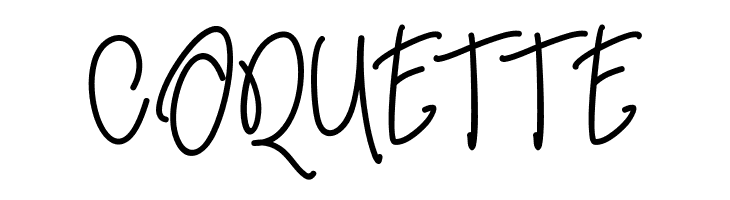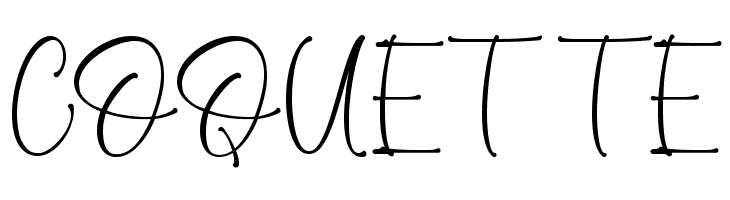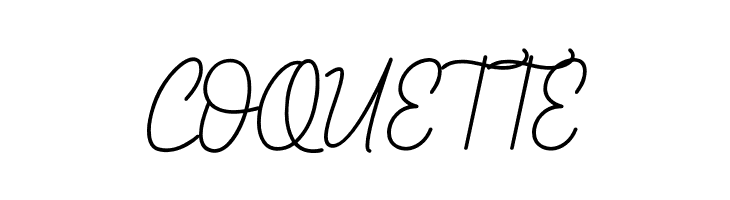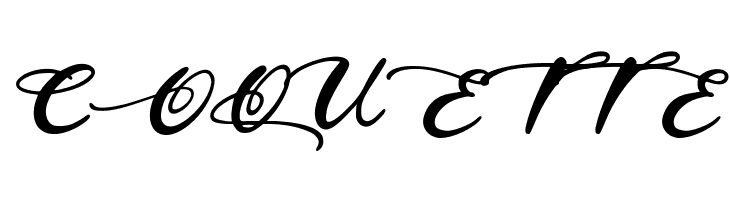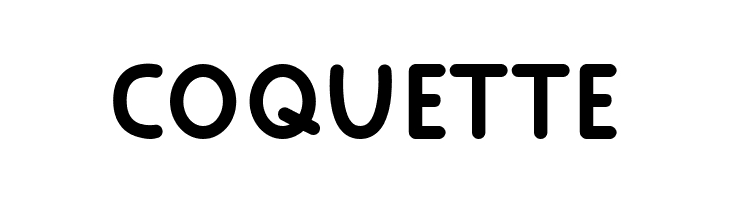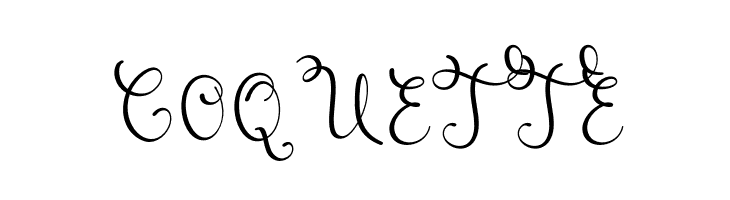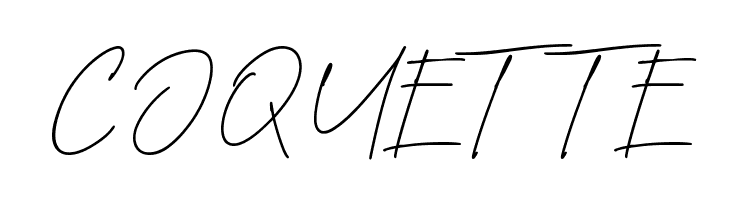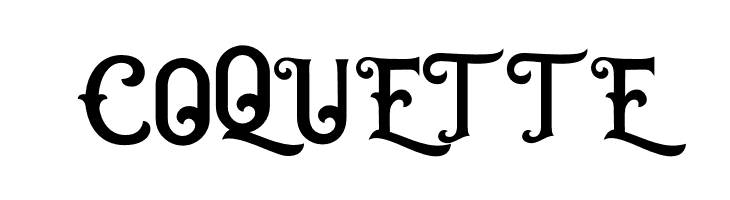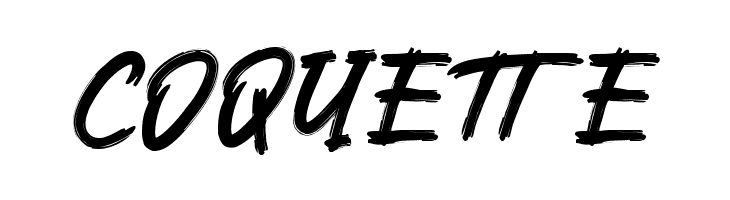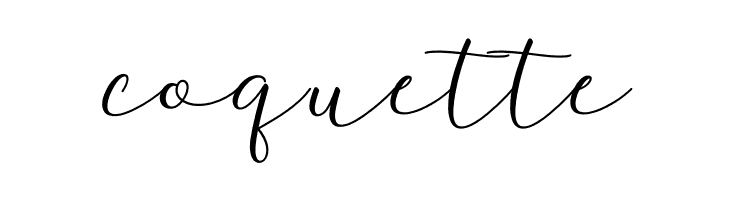
A bold, expressive handwritten font with high contrast and dynamic style.
A bold, expressive handwritten font with fluid, dynamic strokes.
A decorative and bold font with ornate uppercase and clear lowercase letters.
A bold, distressed font with a grunge, hand-painted style.
An intricate, nature-inspired decorative font with vine-like embellishments.
A smooth, flowing script font with a casual elegance.
An elegant script font with graceful curves and decorative flourishes.
A whimsical, handwritten font with decorative serifs and a playful style.
An elegant, cursive script font with flowing lines and sophisticated style.
A lively and expressive handwritten font with fluid strokes.
A graceful cursive font with elegant loops and a sophisticated style.
A bold, expressive script font with high contrast and elegant flourishes.
A fluid and elegant handwritten font with a natural cursive style.
A graceful, cursive handwritten font with elegant, flowing strokes.
A graceful and elegant script font with flowing, connected letters.
A dynamic, cursive script font with medium contrast and elegant flow.
A playful, rounded font with smooth curves and a friendly appearance.
A bold, modern font with a unique decorative line through each character.
A bold, decorative font with swirling lines intersecting each character.
A bold, halftone-patterned sans-serif font with a modern, textured appearance.
A bold, dynamic brush-style font with expressive strokes and a modern flair.
A playful, handwritten font with flowing, interconnected letterforms.
A bold and expressive script font with a hand-drawn, calligraphic style.
A bold, expressive handwritten font with fluid, sweeping strokes.
A playful, casual handwritten font with smooth, flowing strokes.
An elegant, flowing script font with intricate loops and swirls.
A bold, textured brush-style font with a hand-painted look.
A modern, dotted font with a digital and technical aesthetic.
A pixelated, dot-based font with a retro digital aesthetic.
A bold, geometric font with strong lines and modern appeal.
A bold, modern sans-serif font with geometric shapes and clean lines.
A bold, angular font with a dynamic, forward-leaning design.